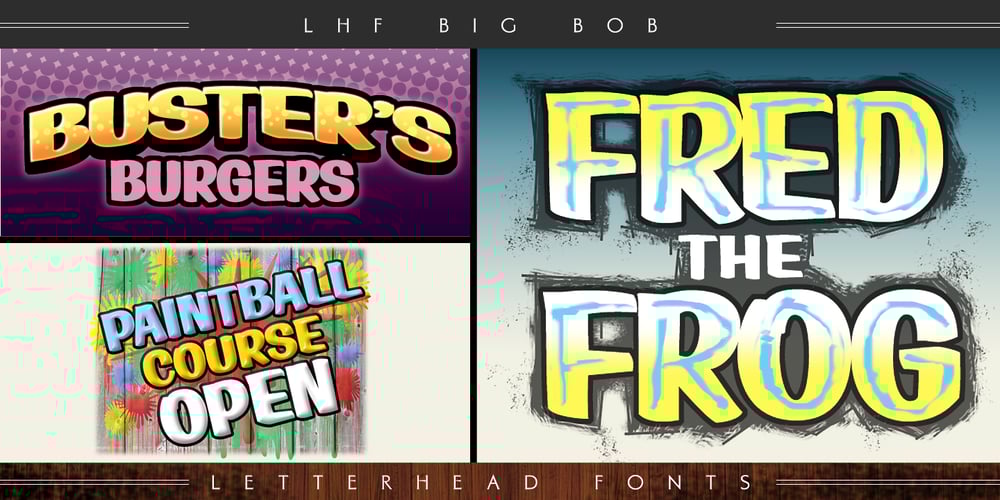
LHF Big Bob Font Family was designed by David Parr and published by Letterhead Fonts. LHF Big Bob contains 3 styles and family package options. Classic sign painter’s casual. Perfect for children’s books or light hearted designs. You receive all 3 fonts: Regular, Medium & Bold.